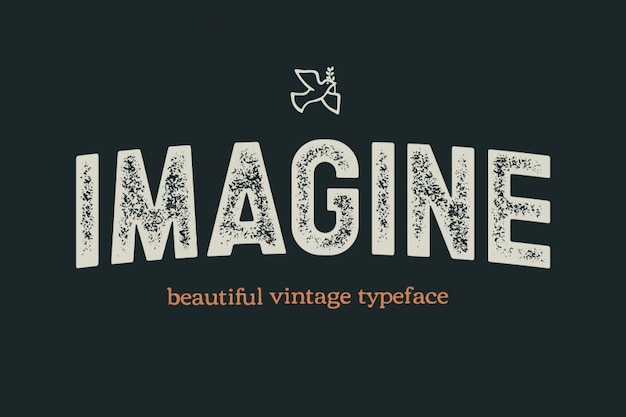
Imagine Font
Salamahtype
Imagine font embodies nostalgia with its vintage, retro charm and textured appearance, reminiscent of printed materials from yesteryears. Each character evokes a sense of history and warmth, perfect for adding a touch of old-world charm to your designs. Whether for posters, branding, or editorial projects, Imagine brings a timeless appeal that captivates the imagination.